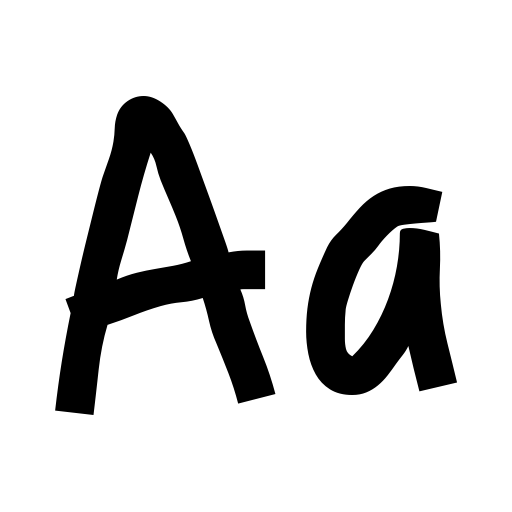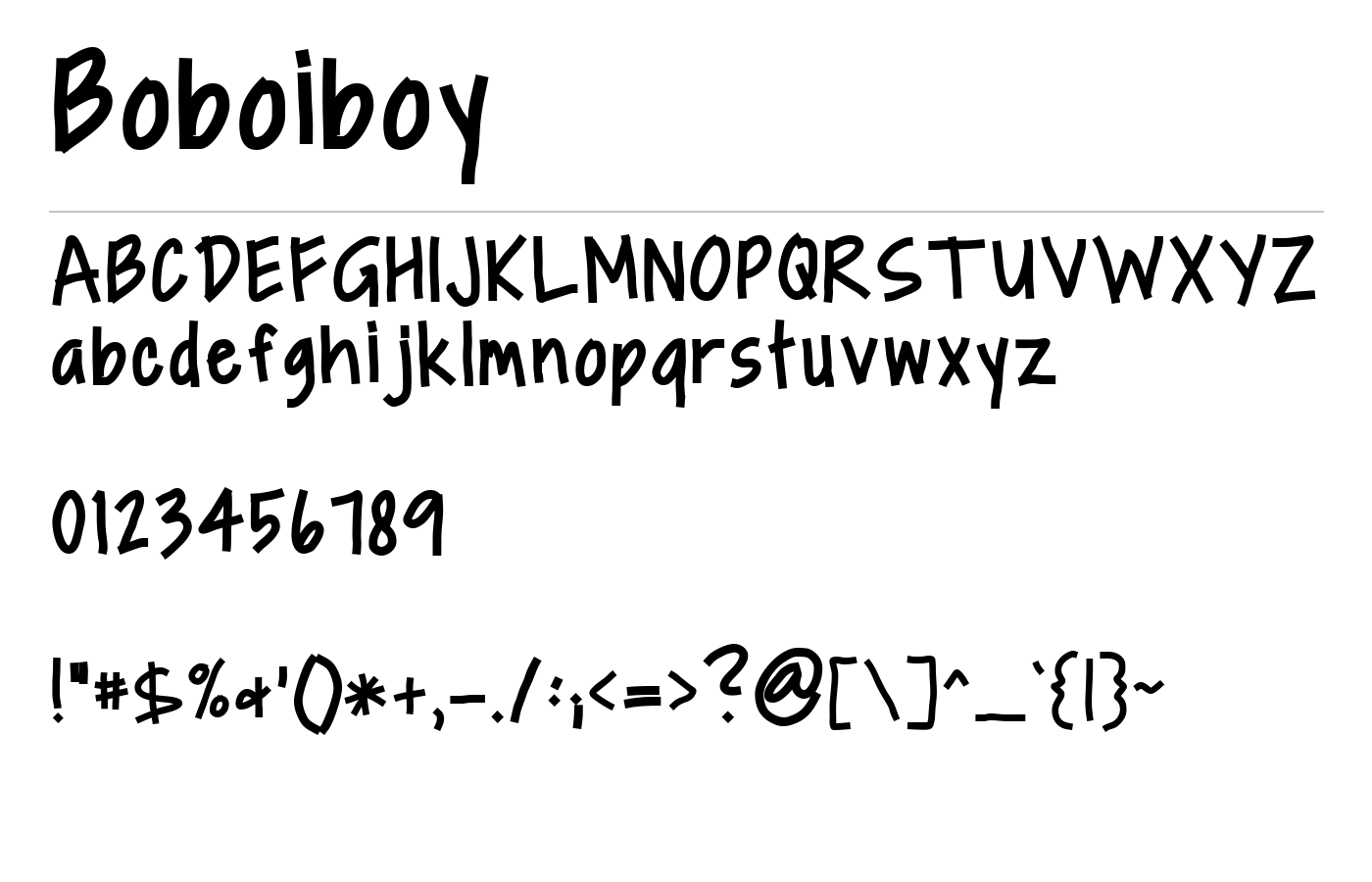
Boboiboy Font is a playful and casual sans serif typeface with a hand-drawn, slightly irregular style that adds a friendly and approachable feel. Its medium weight and normal width, combined with quirky letterforms and balanced spacing, make it ideal for informal designs like children’s books, comics, and creative branding. This font works best in logos, headlines, and packaging that want to convey fun, energy, and personality.
Boboiboy Font
About Boboiboy Font
| Font family | Boboiboy Font |
| Designer | Rachma |